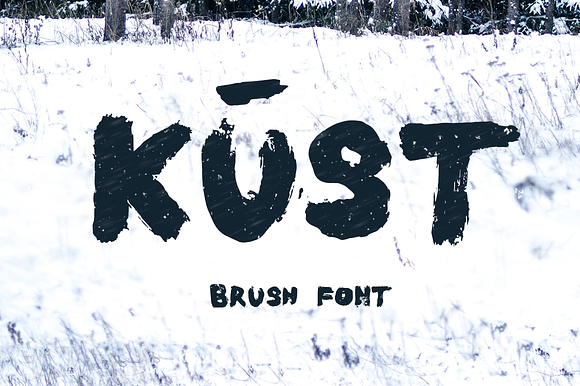
Kust Extended Brush Font
Kust Extended Brush Font is perfect for artistic branding, coastal businesses, maritime-themed restaurants, beach resort signage, surf shop materials, nautical product packaging, creative studio identities, seaside event invitations, ocean conservation campaigns, watercolor art projects, marine lifestyle brands, and authentic coastal communications.
What makes Kust Extended Brush Font exciting is its coastal authenticity that captures the fluid beauty and expansive horizons of maritime landscapes through extended brush strokes that flow like ocean waves across endless sandy shores. This captivating typeface embodies the essence of coastal living and maritime heritage, combining organic brush movements with extended proportions that create sweeping visual presence while resonating with audiences seeking authentic connection to ocean environments and coastal lifestyle experiences. The font's extended maritime character and natural variations provide maximum coastal impact while maintaining the readability essential for seaside commercial applications that celebrate ocean culture. Its flowing personality makes it perfect for brands that want to communicate coastal authenticity, natural beauty, and the transformative power of extended ocean experiences and maritime traditions.
The Kust Extended Brush Font family includes regular and bold weights, featuring extended coastal alternates, flowing ligatures, and maritime-inspired flourishes. The character set incorporates ocean symbols, coastal numerals, and nautical punctuation marks that enhance the font's extended maritime character and provide designers with comprehensive coastal typography solutions for authentic seaside brand expressions with maximum oceanic presence.